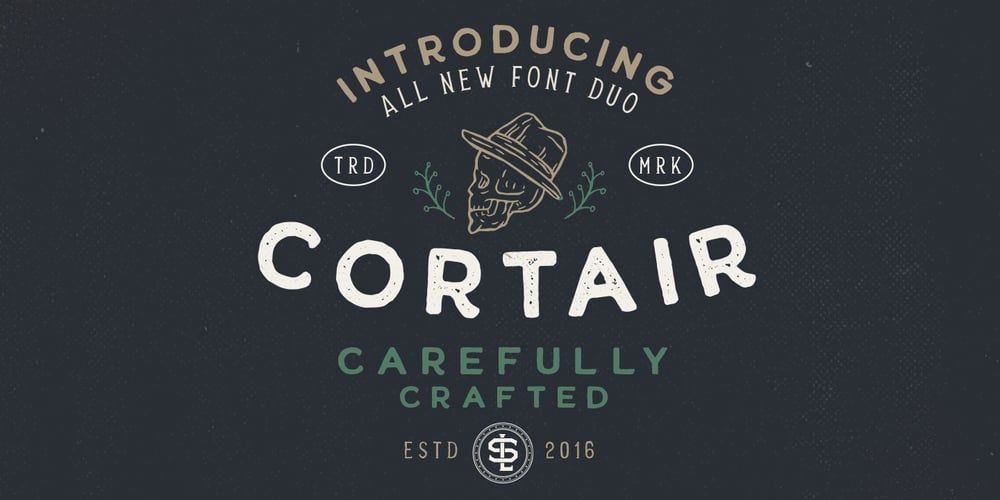
Cortair Font Family was designed by Hendry Juanda and published by Letterhend. Cortair contains 4 styles and family package options. Cortair is an organic font duo with natural vibes! Contain two fonts, Sans and Serif with Rough and Stamp Style. You can use this font for every project. Suitable for branding logo, hand lettering, or apparel design.We hope you enjoy the font, please feel free to comment if you have any thoughts or feedback. Or simply send me a PM or email me at letterhend@gmail.com